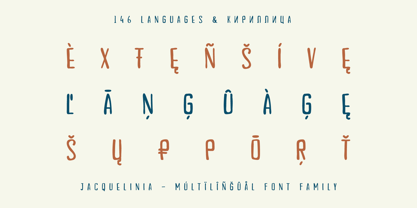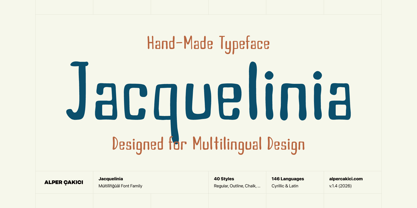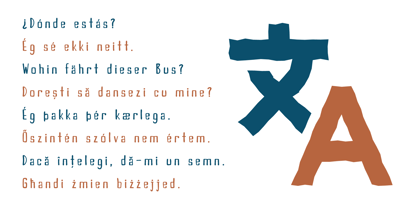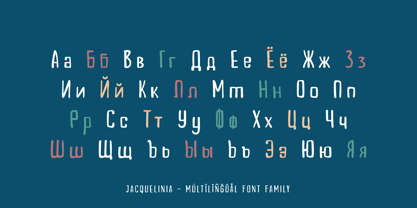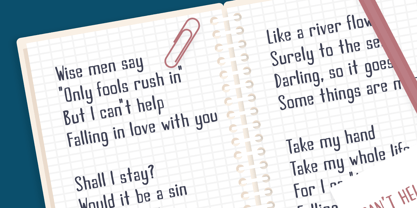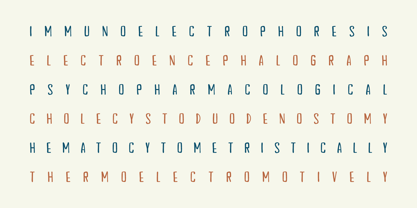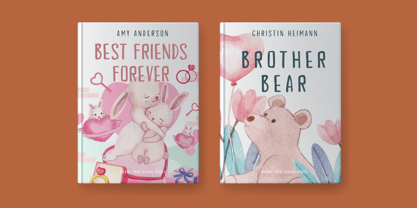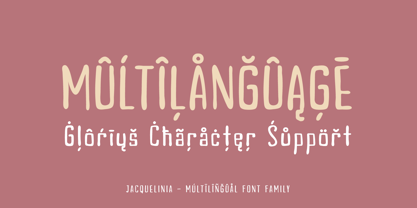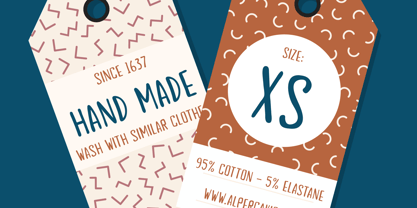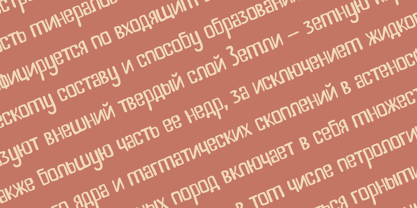
Jacquelinia
by AlperCakici
The Jacquelinia Font Family was designed by Alper Çakıcı and published by AlperCakici. Jacquelinia contains 40 styles and family package options. More about this family
Jacquelinia is a versatile handwritten script typeface designed to capture the natural rhythm of real handwriting—expressive, organic, and full of personality. Unlike traditional cursive scripts, Jacquelinia maintains a handwritten structure with clear letterforms, making it both stylish and highly legible. Crafted for designers who want authenticity without sacrificing clarity, Jacquelinia blends casual charm with professional flexibility. It works beautifully across branding, packaging, editorial layouts, social media graphics, stationery, posters, and creative merchandise. The family includes an extensive range of expressive styles, allowing you to move effortlessly between clean, textured, bold, and artistic looks. Whether you need something smooth and polished or rough and tactile, Jacquelinia adapts to your creative vision. Family Styles Included Angular, Angular Italic, Angular Outline, Angular Outline Italic Brush, Brush Italic, Brush Outline, Brush Outline Italic Chalk, Chalk Italic, Chalk Outline, Chalk Outline Italic Eroded, Eroded Italic, Eroded Outline, Eroded Outline Italic Graphite, Graphite Italic, Graphite Outline, Graphite Outline Italic Liner, Liner Italic, Liner Outline, Liner Outline Italic Pencil, Pencil Italic, Pencil Outline, Pencil Outline Italic Regular, Italic Outline, Outline Italic Rough, Rough Italic, Rough Outline, Rough Outline Italic Wax, Wax Italic, Wax Outline, Wax Outline Italic With its wide stylistic range, Jacquelinia gives designers the freedom to create everything from refined logos to raw handcrafted compositions.
Designers: Alper Çakıcı
Foundry: AlperCakici